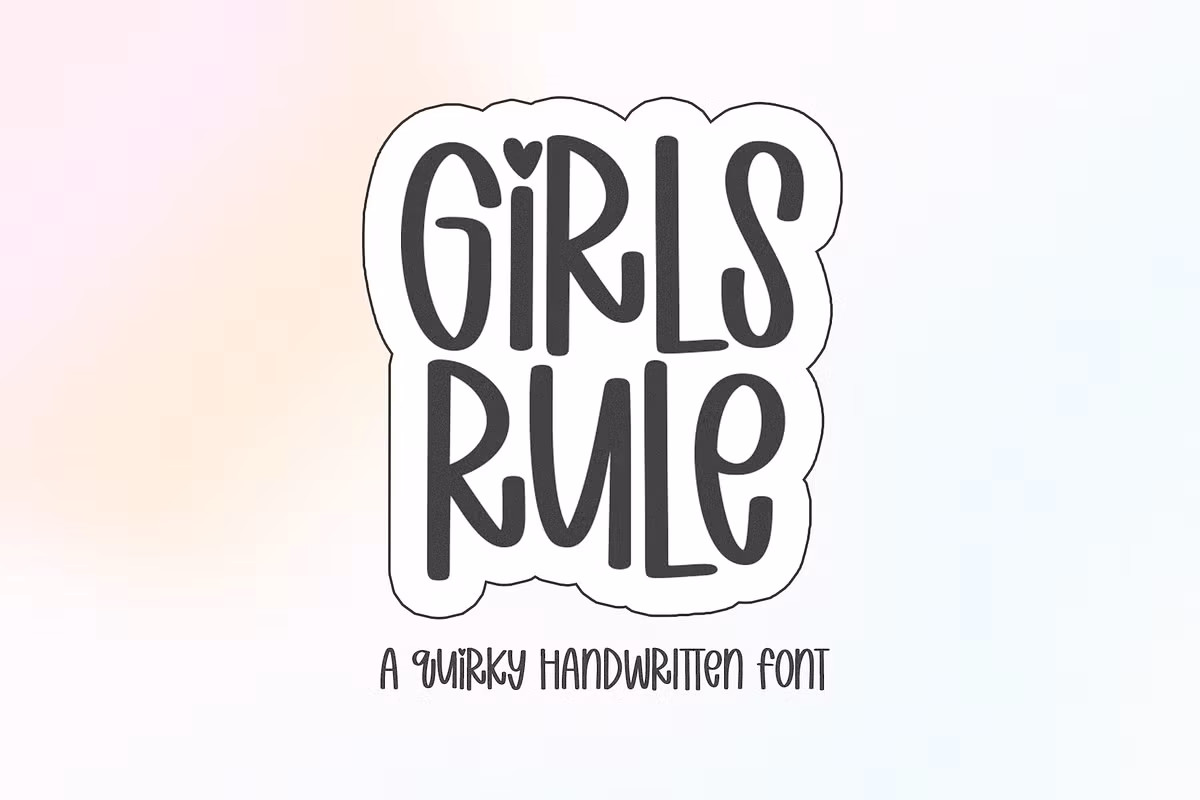
Girls Rule | Cute Handwritten Font Free Download
Girls Rule | Cute Handwritten Font Free Download is a playful and charming script typeface that adds a fun, handwritten touch to any design. Perfect for logos, invitations, branding, and social media graphics, Girls Rule offers a lighthearted and whimsical feel. Its fluid strokes and sweet, personal style make it ideal for projects that need a friendly, creative flair.